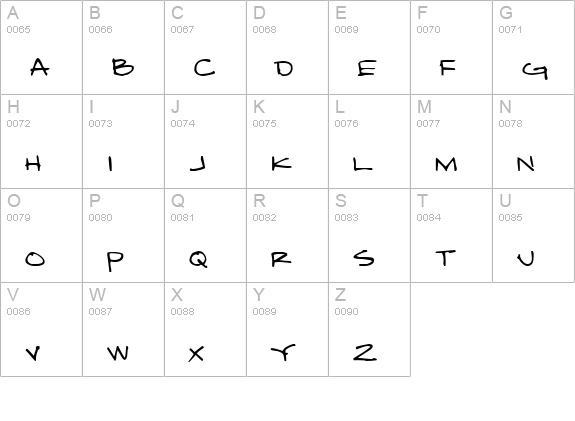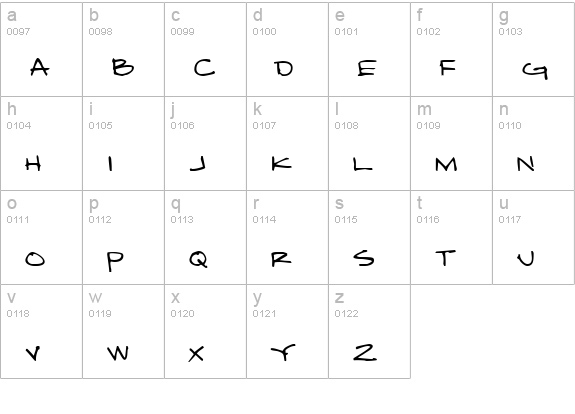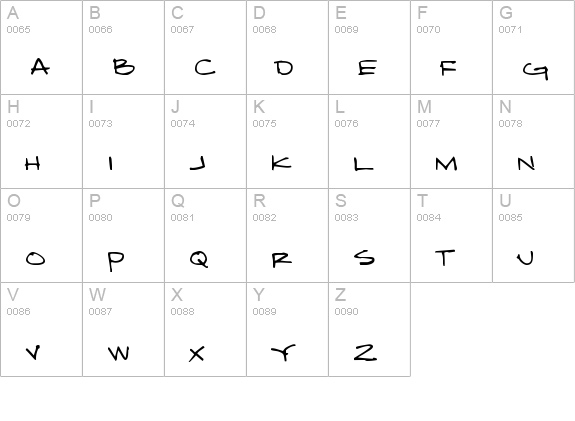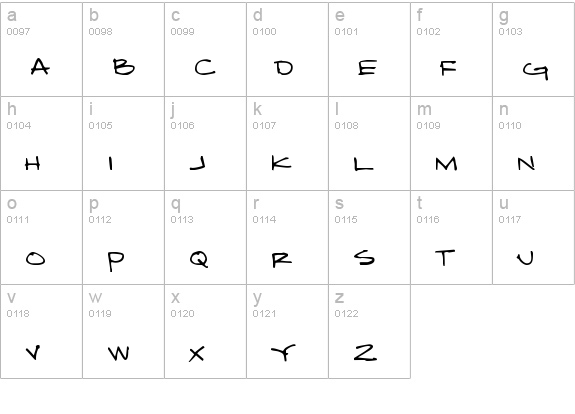
Damned Architect Font Details
Introducing Damned Architect font, a mesmerizing typeface that effortlessly merges the elegance of architectural precision with a touch of dark allure. This font is meticulously crafted to capture the essence of architectural blueprints, offering a unique and captivating visual experience. Damned Architect font features clean, sharp lines that resemble the precision and attention to detail found in architectural designs. Each letter is expertly crafted to exude a sense of structure and sophistication, making it the ideal choice for projects that require a touch of refined elegance. This font's versatility knows no bounds, as it seamlessly adapts to various design contexts. Whether it's used for logo designs, branding materials, book covers, or even website headers, Damned Architect font adds a distinct touch of professionalism and intrigue. One of the most remarkable aspects of Damned Architect font is that it is freely available to download at FontsMarket.com. This means that designers, architects, and enthusiasts alike can now access this exceptional font without any cost. This generosity allows for creative freedom to flourish, empowering individuals to bring their visions to life without any constraints. With its captivating aesthetics and unrivaled versatility, Damned Architect font is a must-have for any designer seeking to make a bold statement. Download it today at FontsMarket.com and unleash your creativity with this remarkable typeface.